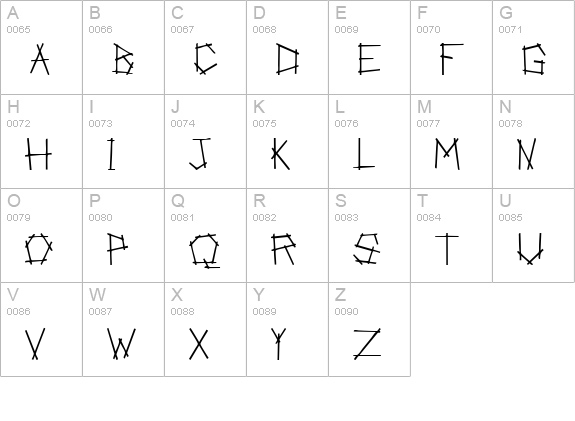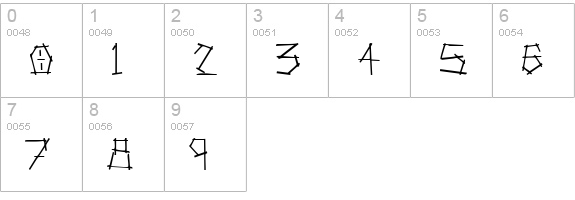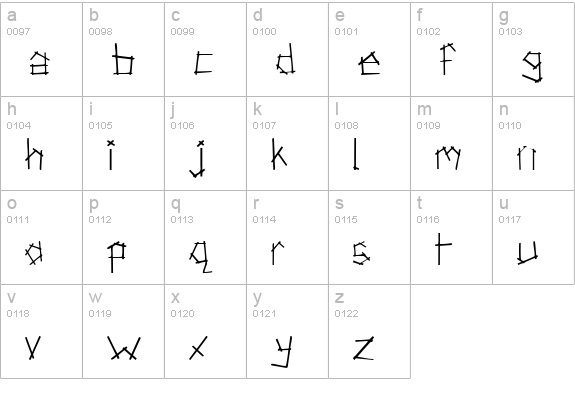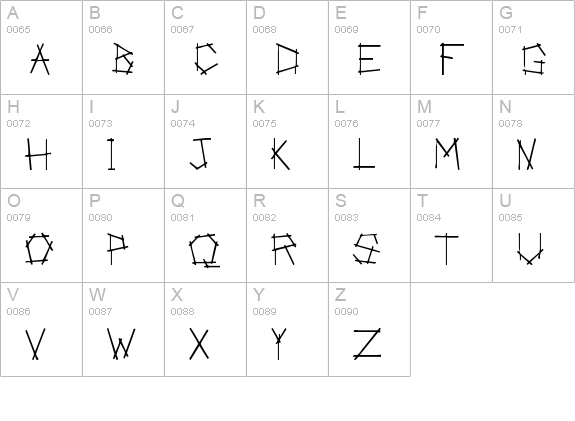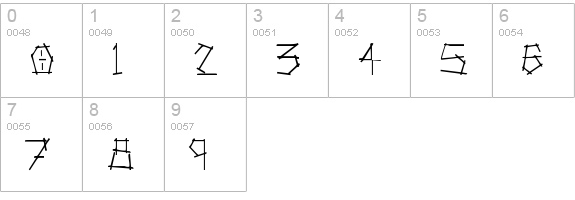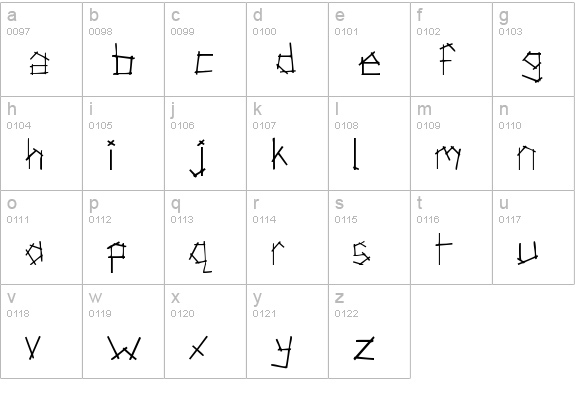
Anarchist Bible Font Details
The Anarchist Bible font is a rebellious and bold typeface that exudes a sense of defiance and nonconformity. With its sharp edges and intricate design, this font is perfect for making a statement and standing out from the crowd. The Anarchist Bible font is not bound by traditional rules or limitations, allowing you to express your creativity and individuality with every letter. This unique font is freely available to download at FontsMarket.com, giving you the freedom to use it in your projects without any restrictions. Embrace the spirit of rebellion and revolution with the Anarchist Bible font, and let your words make a powerful impact wherever they are seen.